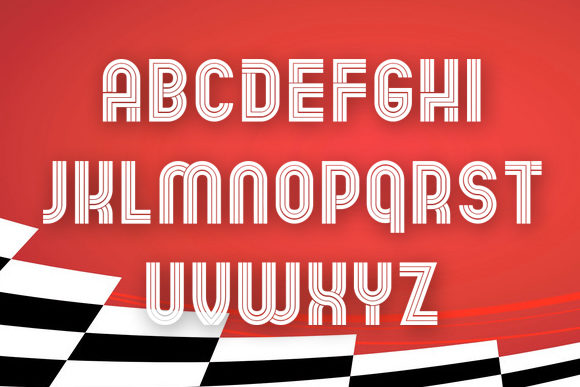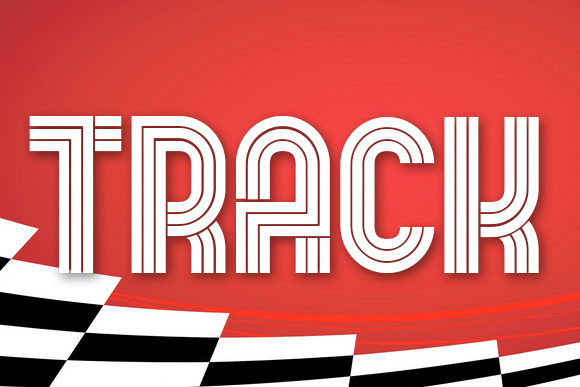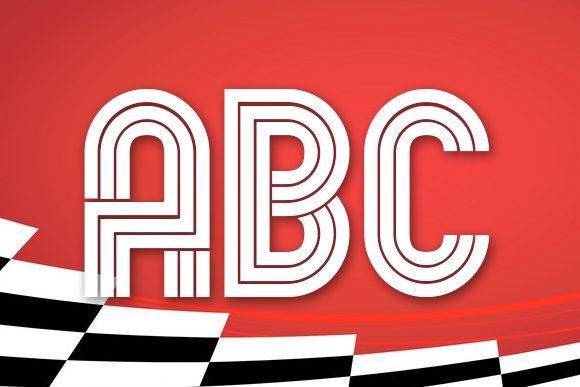
Introducing Formula Font: Unleash Your Creativity with Bold and Authentic Display Typography
In the world of design, typography plays a crucial role in conveying messages, expressing emotions, and creating visual identities. Among the numerous fonts available, Formula Font stands out as a bold and authentic display font that celebrates abstract shapes in all their eclectic beauty. In this article, we’ll dive into the features, benefits, and creative possibilities of Formula Font, making it a must-have for designers and crafters alike.
What is Formula Font?
Formula Font is a display font designed to make a statement. Its bold and authentic style is perfect for creative projects that require a touch of uniqueness and personality. The font’s design is inspired by abstract shapes, which are skillfully crafted to create a visually appealing and eclectic aesthetic.
Key Features of Formula Font
- Bold and Authentic Style: Formula Font boasts a confident and genuine look that’s sure to grab attention.
- Eclectic Beauty: The font’s abstract shapes and unique design elements make it perfect for creative projects that require a touch of individuality.
- Display Font: Formula Font is designed specifically for display purposes, making it ideal for headlines, titles, and other prominent text elements.
- Versatility: This font can be used across various design platforms, including print, digital, and web applications.
Benefits of Using Formula Font
So, why should designers and crafters choose Formula Font for their creative projects? Here are some benefits that make it a valuable addition to your typography collection:
- Adds Visual Interest: Formula Font’s unique design and bold style make it an excellent choice for adding visual interest to your designs.
- Enhances Creativity: The font’s eclectic beauty and abstract shapes can inspire creativity and help you think outside the box.
- Perfect for Branding: Formula Font’s authentic style makes it an excellent choice for branding projects that require a bold and genuine look.
- Easy to Read: Despite its bold style, Formula Font is easy to read, making it suitable for use in various design applications.
Creative Possibilities with Formula Font
Now that we’ve explored the features and benefits of Formula Font, let’s take a look at some creative possibilities:
- Poster Design: Use Formula Font to create eye-catching posters that showcase your message in a bold and authentic way.
- Logo Design: Add a touch of uniqueness to your logo designs with Formula Font’s eclectic beauty and abstract shapes.
- Social Media Graphics: Make your social media graphics stand out with Formula Font’s bold and attention-grabbing style.
- Packaging Design: Use Formula Font to add a creative touch to your packaging designs and make them more visually appealing.
In conclusion, Formula Font is a bold and authentic display font that celebrates abstract shapes in all their eclectic beauty. Its unique design, versatility, and ease of use make it an excellent choice for designers and crafters looking to add a touch of creativity to their projects. Whether you’re working on a poster, logo, social media graphic, or packaging design, Formula Font is sure to make your creative ideas come alive!